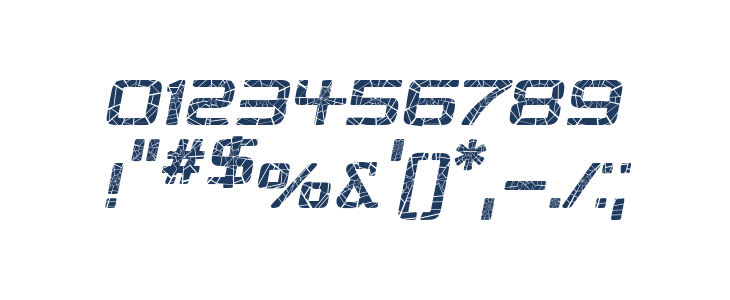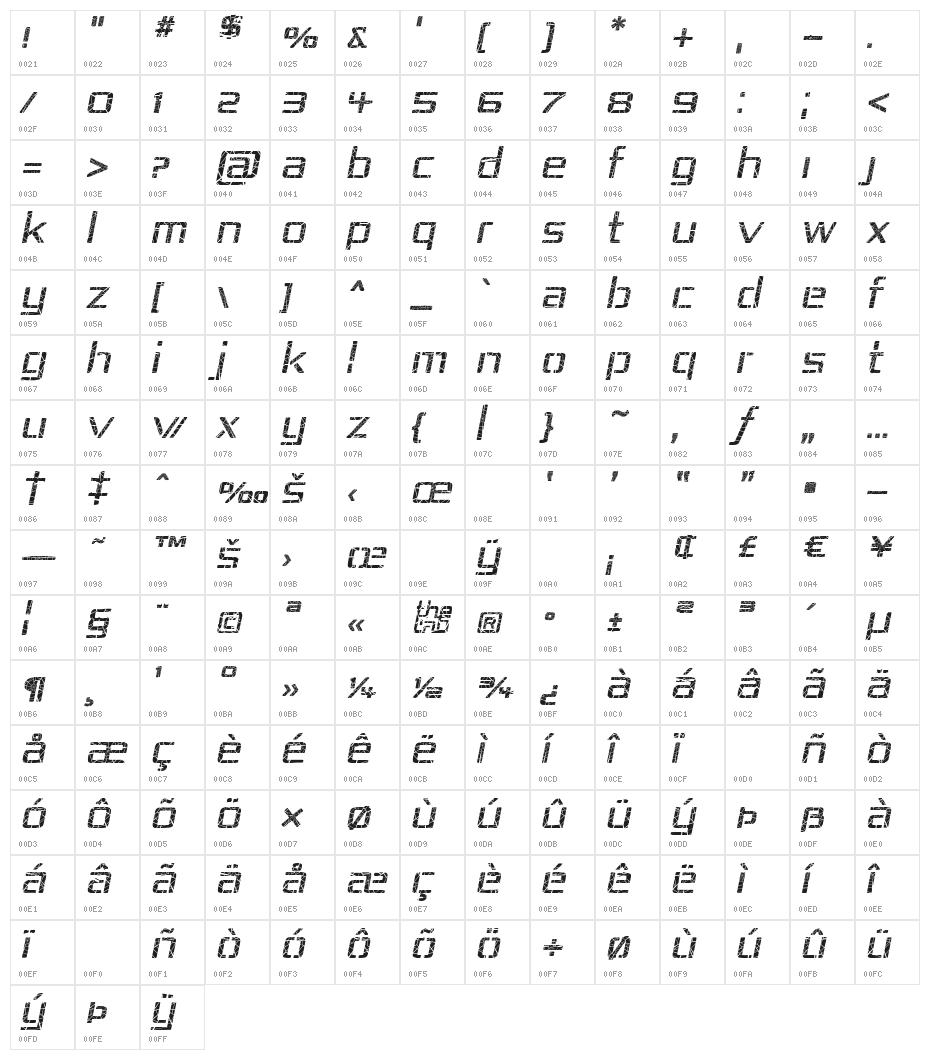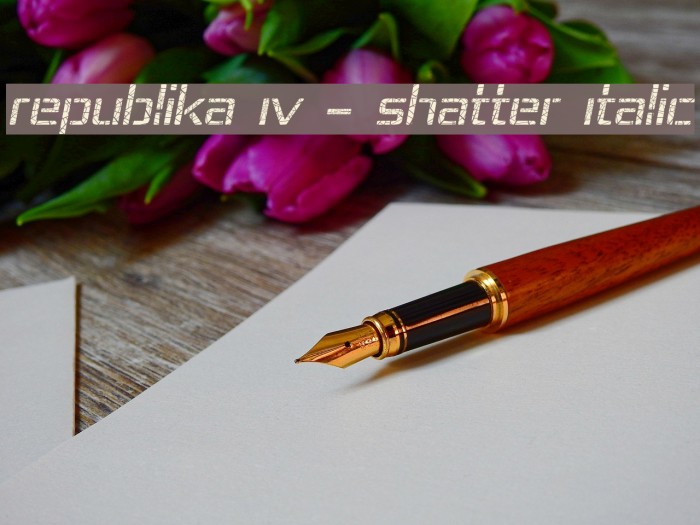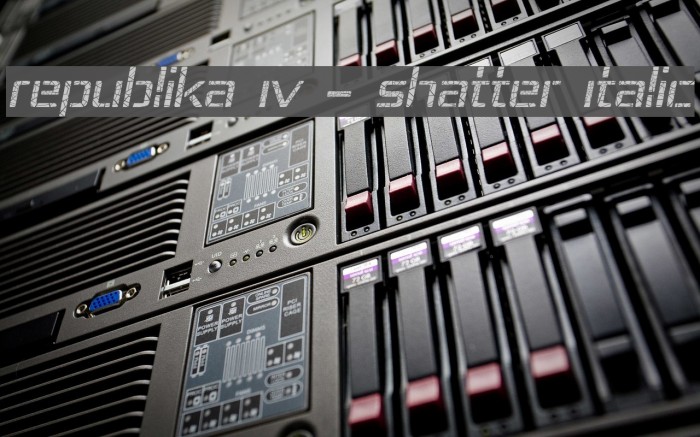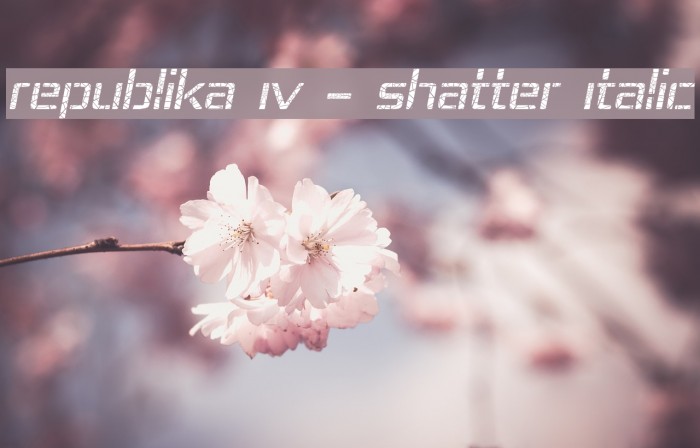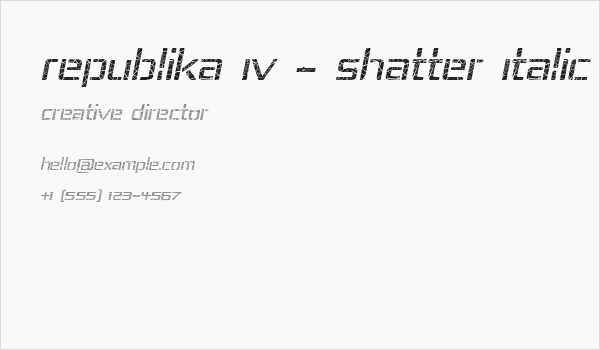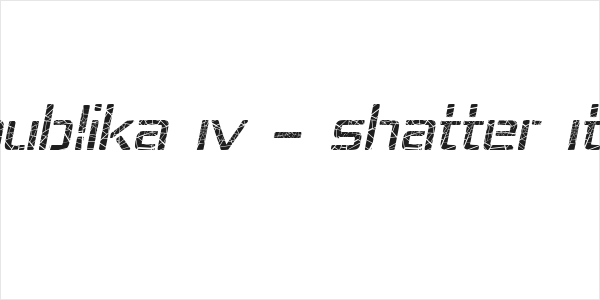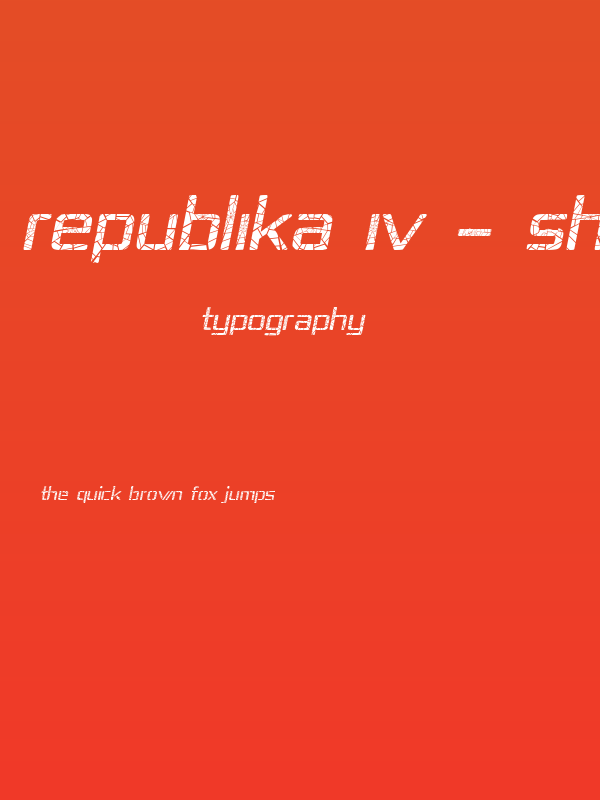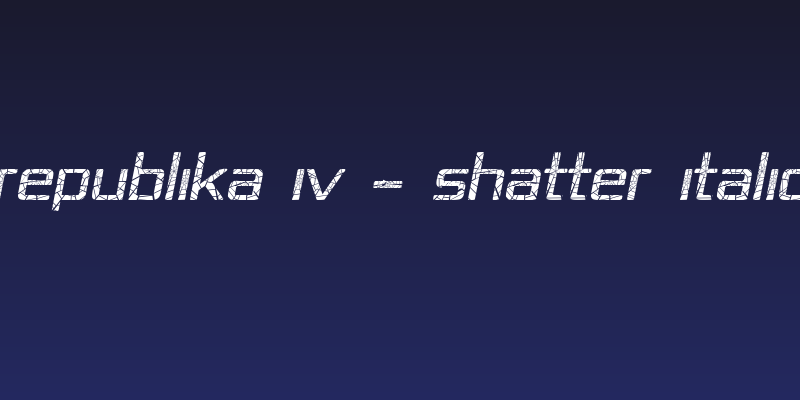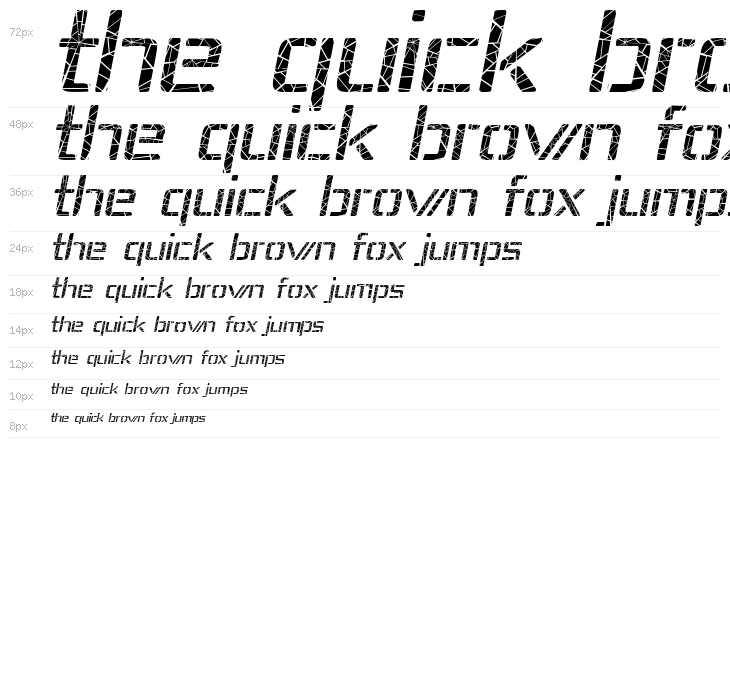
Republika IV - Shatter Italic Font
Republika IV - Shatter Italic Description
This font features a unique shattered effect that gives it a dynamic and edgy appearance. The letters are italicized, adding a sense of motion and urgency. The geometric fragmentation within each character creates a striking visual impact, making it ideal for attention-grabbing designs. The uppercase and lowercase letters maintain a consistent style, ensuring readability despite the decorative elements. Numbers and special characters are also included, following the same shattered pattern, which adds to the font's cohesive look.
| Proposed Projects | Ideal for edgy branding, music album covers, event posters, and modern digital artwork. |